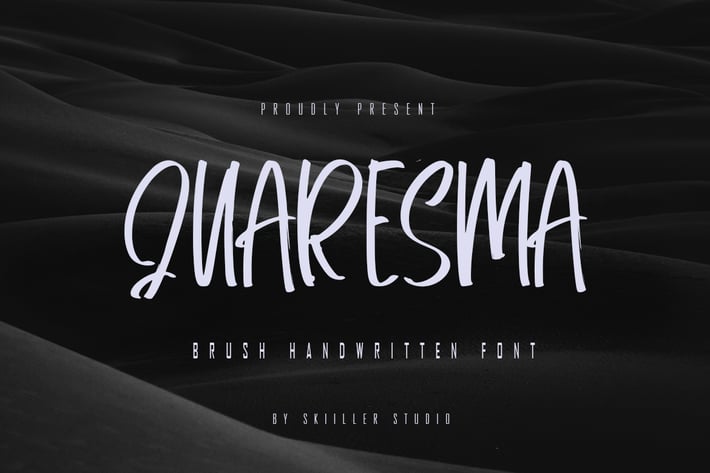
Quaresma - Brush Handwritten Font
Quaresma is a handwritten signature script with a natural flow and beautiful style. Kathilass is perfect for design projects, prewedding, branding.
+ Basic Latin Language Support (AÀÁÂÃÄÅCÇDÐEÈÉÊËIÌÍÎÏÑOØÒÓÔÕÖUÙÜÚÛWYÝŸÆß